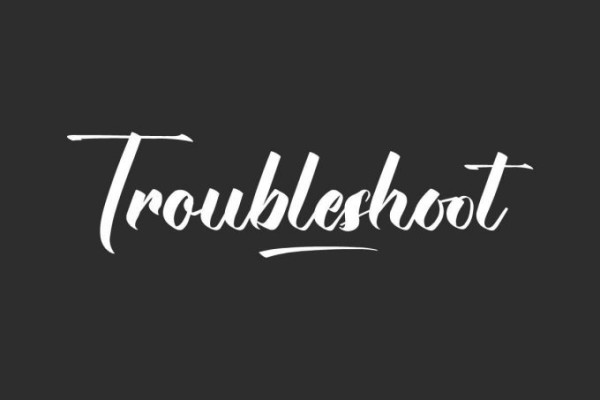
Troubleshoot Font
Troubleshoot Font is a classic brush script font with calligraphy style designed by VinType Studio. This font is made with bold lines that will make your designs stand out and still be easy to read. This font will be suitable for many industries, such as accessories, advertisement, boutique, café, florist, hotel and resort, jewelry, perfume, printing, publishing, skincare, spa, wedding organizer, and more!
Troubleshoot Font includes full set of Uppercase and Lowercase Basic Characters, Numerals and Punctuation. Also it contains Swoosh characters to make it catchy and add more aesthetic fonts to your extraordinary project, such as brand logo, brochure, catalog, custom design, frame art, invitation, label, packaging design, poster, quotes, screen printing, stationery, sticker, website, etc.